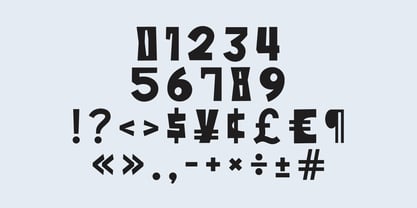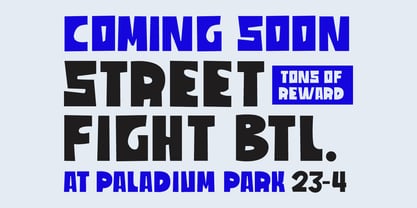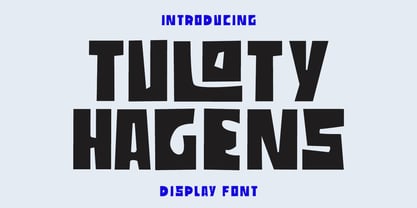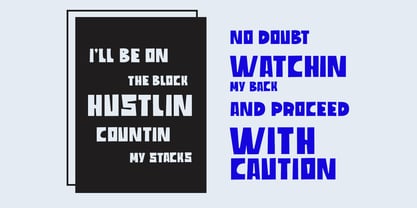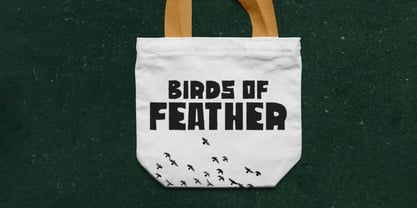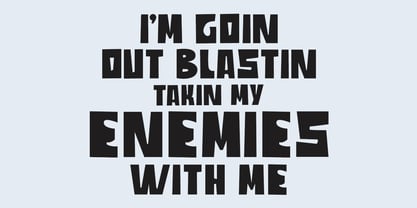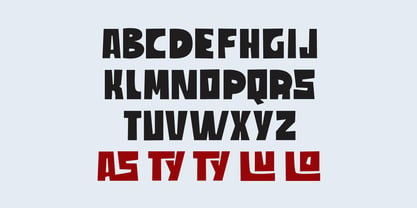
MC Tuloty Hagens
by Maulana Creative
The MC Tuloty Hagens Font Family was designed by Gilang Maulana and published by Maulana Creative. MC Tuloty Hagens contains 1 styles. More about this family
Tuloty Hagens is an display decorative display font. With bold stroke, fun character with a bit of ligatures. To give you an extra creative work. Tuloty Hagens font support multilingual more than 100+ language. This font is good for logo design, Social media, Movie Titles, Books Titles, a short text even a long text letter and good for your secondary text font with sans or serif. Make a stunning work with Tuloty Hagens font.
Designers: Gilang Maulana
Foundry: Maulana Creative